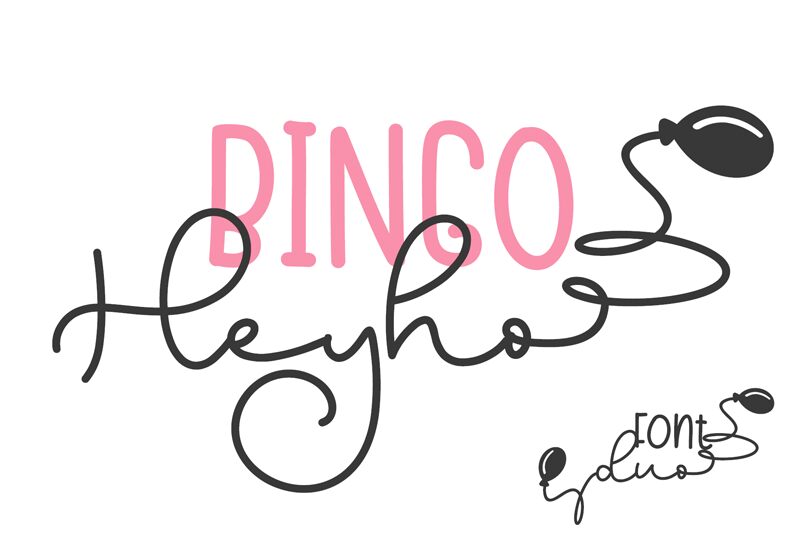
Bingo Heyho, designed by Bearytype, is a captivating handwritten font with a semi-light weight and extra-condensed width. This versatile duo font offers both a script and sans serif option, allowing you to unleash your creativity in various design projects.
Whether you're working on elegant wedding invitations, sophisticated branding materials, or charming social media graphics, Bingo Heyho will effortlessly infuse a touch of luxury into your creations. With its PUA encoding, accessing the extensive range of exquisite glyphs and ligatures is a breeze.
Let Bingo Heyho elevate your designs to new levels of beauty and sophistication!